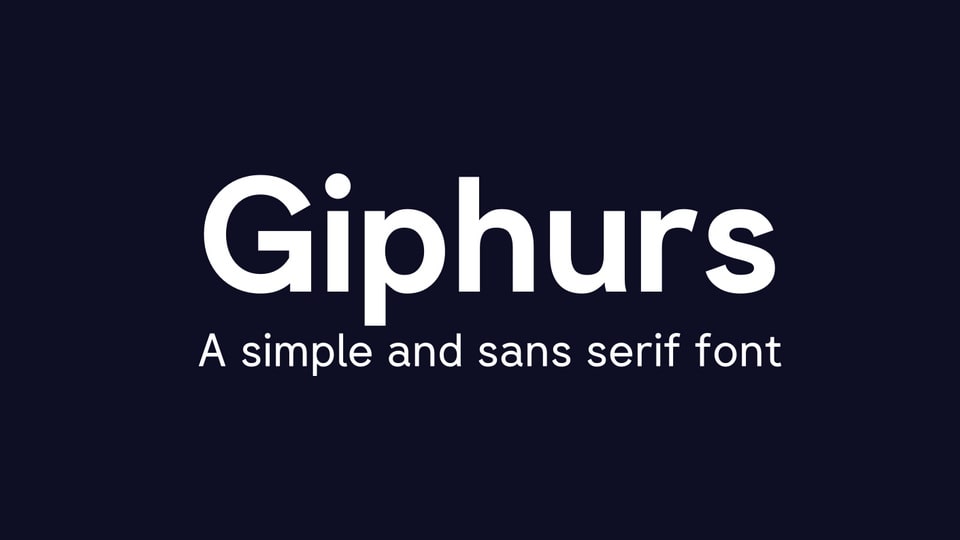
Giphurs Font Family › Fontesk – Download Grátis
Download Giphurs font, a sans serif typeface designed with simplicity, readability, and versatility at its core. Giphurs is inspired by the timeless aesthetics of Arial, Helvetica, and Circular Std.
Designer: Corne2Plum3